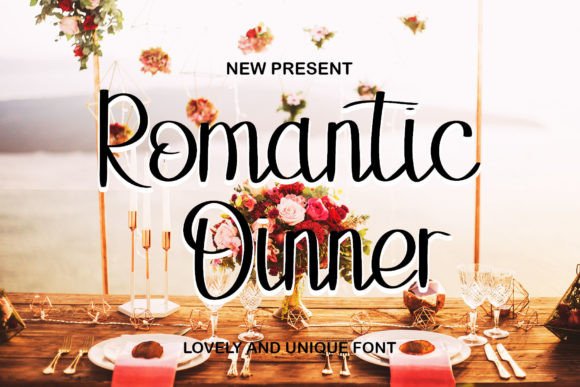
Step into the realm of sophistication and elegance with Romantic Dinner, the script font that exudes timeless charm and contemporary flair. Crafted with meticulous attention to detail, Romantic Dinner embodies the essence of classic calligraphy, making it an exceptional choice for those seeking a font that speaks volumes.
Indulge in the harmonious blend of delicate strokes and graceful curves that define Romantic Dinner. Its inherent versatility allows it to effortlessly adapt to a myriad of creative endeavors, from heartfelt love letters and wedding invitations to captivating branding and social media content.
Unleash your imagination and watch as Romantic Dinner transforms your words into captivating works of art. Its well-balanced structure ensures impeccable form, while its contemporary atmosphere adds a touch of modernity to your designs.
With Romantic Dinner, the possibilities are endless. Experience the allure of a font that effortlessly captures the essence of romance and timeless elegance. Let your creativity flourish as you explore the boundless applications of this remarkable script font.